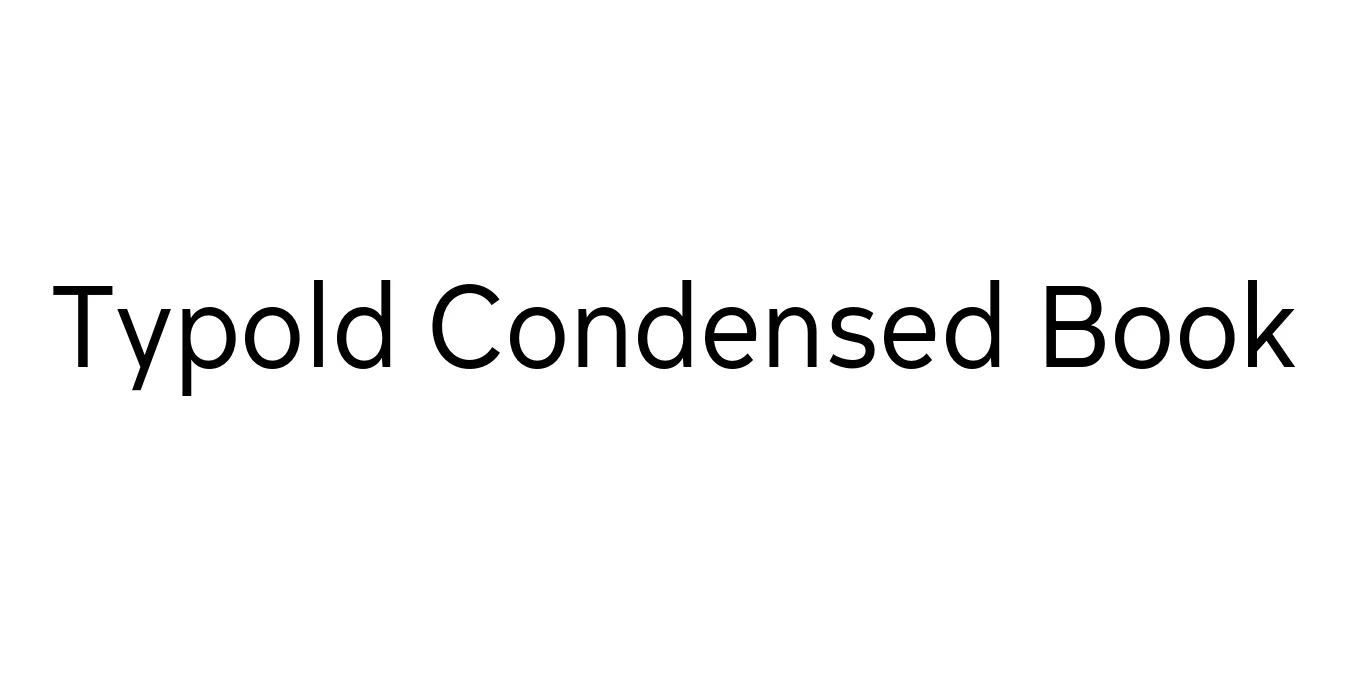
Typold Condensed Book
Designed by Jonathan Hill
| Font Name | Typold Condensed Book |
| Designer | Jonathan Hill |
Typold Condensed Book is a refined geometric sans-serif typeface designed by Jonathan Hill for The Northern Block. Part of the expansive Typold family, this typeface was developed through a rigorous exploration of mathematical precision and structural balance. The condensed variant was specifically engineered to provide maximum space efficiency while maintaining the clean, modern aesthetic and high legibility that the original family is known for.
The design features subtle geometric nuances and a generous x-height, making it exceptionally versatile for both digital and print environments. By balancing optical clarity with a compact footprint, Typold Condensed Book serves as a professional tool for designers who require a sophisticated, authoritative tone in layouts where horizontal space is at a premium.
Typold Condensed Book Best Uses
Highly effective for mobile applications and dashboards with limited space.
Provides a precise and modern look for tech-focused branding.
Perfect for dense typographic hierarchies and magazine sidebars.
Optimized for clean, legible headlines on responsive websites.